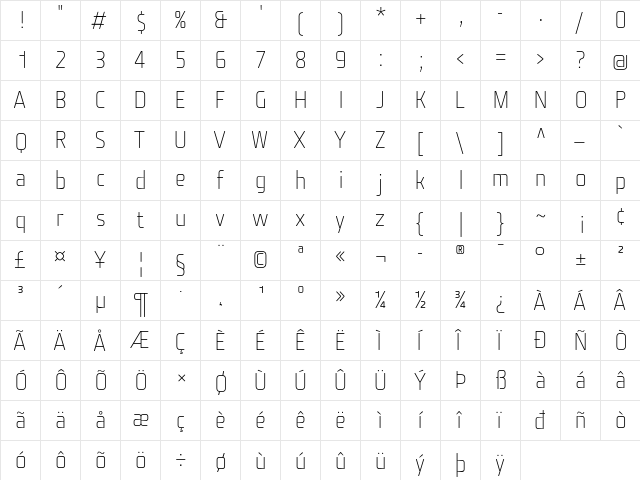
Fishmonger MT Plain
| Foundry | Tomas Brousil |
Design Context for Fishmonger MT Typeface
Fishmonger MT is a composed and adaptable typeface that performs quietly and consistently across a wide range of design contexts.
Pro Tip: Use Fishmonger MT in both headline and body roles to test its range before committing to a single application.